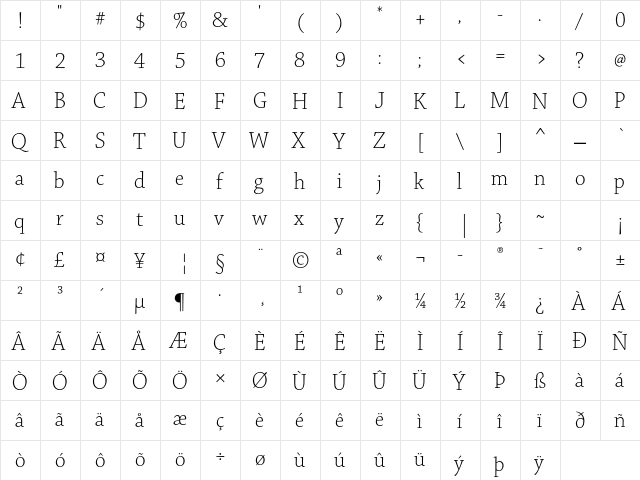
Chaparral Pro Light Display Font Preview
Chaparral Pro Light Display
Chaparral Pro Light Display Font Details
| Style | Light Display |
| Designer | Carol Twombly |
Design Context for Chaparral Pro Typeface
Chaparral Pro brings ornamental detail and strong personality to headlines and identities, where visual impact matters more than quiet functionality. The delicate stroke weight brings airiness and refinement to layouts.
Font Pairing: Pair with a clean neutral sans-serif for body copy to let Chaparral Pro's character lead without overwhelming the composition.
Pro Tip: Treat Chaparral Pro as the centrepiece of your typographic hierarchy. One strong heading set in a decorative face can carry an entire layout.